9 Top Blackletter Fonts for Dark Fantasy Design
Dark fantasy design lives and dies by atmosphere. You can build an incredible composition, use cinematic lighting, add textured backgrounds, and still have the entire project fall apart because the typography feels generic.
That’s why blackletter fonts remain one of the strongest choices for fantasy game branding, gothic posters, dark UI concepts, album covers, and medieval-inspired visuals. The right typeface instantly adds weight, lore, and identity.
After reviewing dozens of modern gothic typefaces, these are the blackletter fonts that stand out most for dark fantasy design in 2026 — especially for gaming titles, cinematic artwork, metal-inspired branding, and horror aesthetics. Many of the fonts below specifically mention fantasy, gothic, gaming, or cinematic use cases in their design descriptions.
The 9 Best Blackletter Fonts for Dark Fantasy
1. Ebon Sigil
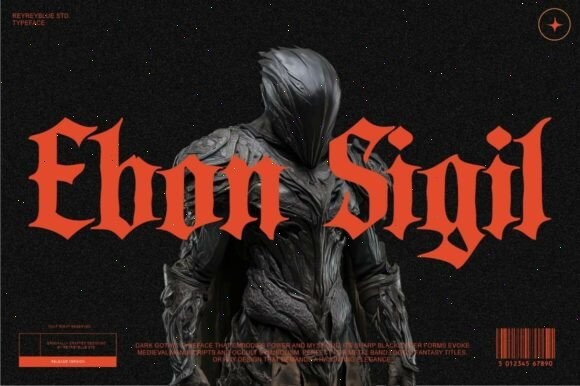
Ebon Sigil is one of the strongest options for dark fantasy branding. The typeface combines gothic structure with occult-inspired detailing and sharp medieval forms. Its official description references ancient sigils, gothic art, and cinematic fantasy aesthetics.
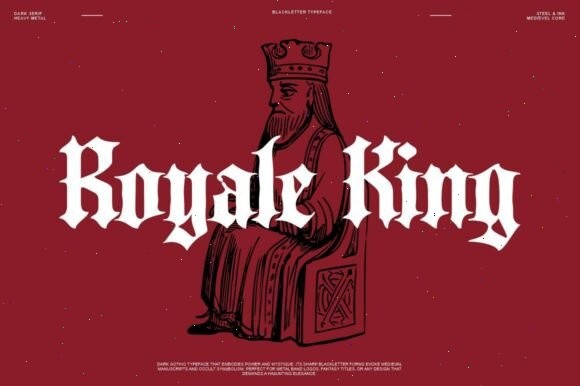
Best For:
Dark fantasy logos, horror branding, fantasy RPG titles, metal artwork, and dungeon-themed UI concepts.
Why It Works:
Ebon Sigil has enough detail to feel dramatic without becoming unreadable. The sharp vertical strokes hold up especially well against textured backgrounds and dark cinematic compositions.
It also works surprisingly well for modern fantasy thumbnails and social graphics because the shapes remain recognizable even at smaller sizes.
2. Tourah Shock
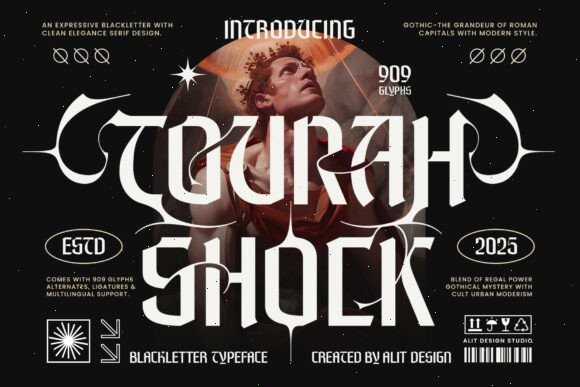
Tourah Shock blends traditional blackletter with tribal ornamentation and futuristic gothic styling. The font description describes it as a fusion between ancient and modern aesthetics with ceremonial influences.
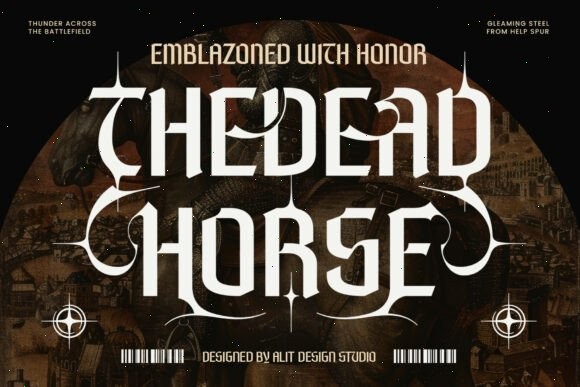
Best For:
Gothic cyber-fantasy branding, dark fashion projects, cinematic title cards, fantasy streetwear graphics, and occult-themed artwork.
Why It Works:
Unlike purely medieval blackletter fonts, Tourah Shock feels modern and experimental. The extended curves and ornamental endings give it a more premium editorial look.
This makes it especially effective for projects mixing fantasy aesthetics with contemporary design trends.
3. Bathory
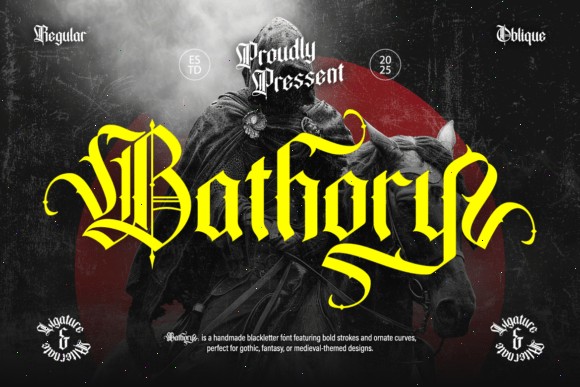
Bathory leans heavily into gothic horror and dark fantasy themes. The font description directly references aesthetics similar to Dark Souls and Diablo-inspired artwork.
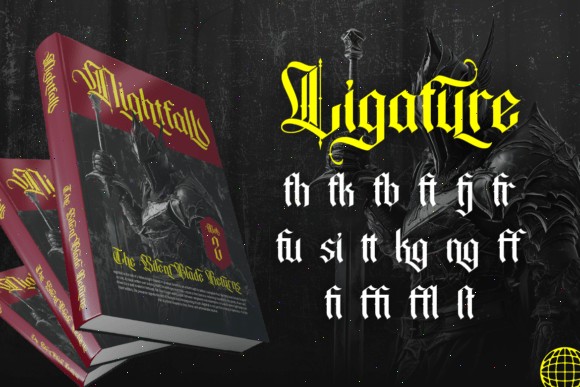
Best For:
Soulslike branding, horror game visuals, fantasy posters, metal band logos, and gothic merchandise.
Why It Works:
Bathory has a traditional blackletter structure with dramatic flourishes that immediately create a dark medieval atmosphere.
The Oblique variation is especially useful for logo treatments because it adds movement and aggression without sacrificing the gothic feel.
4. Crownspire
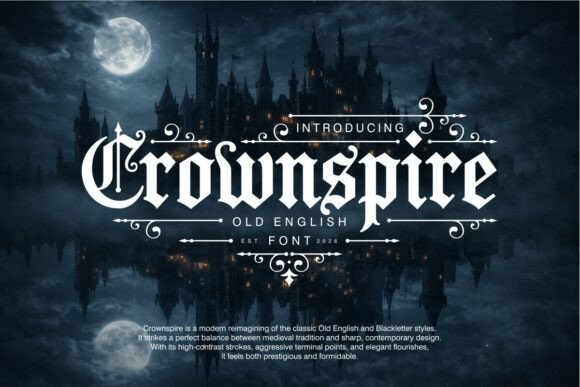
Crownspire feels cleaner and more refined than many aggressive blackletter fonts. It combines medieval inspiration with modern readability and cinematic styling.
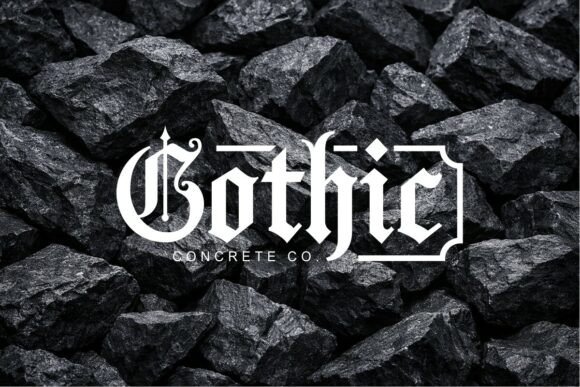
Best For:
AAA fantasy game branding, premium gothic logos, dark fantasy posters, apparel graphics, and fantasy streaming overlays.
Why It Works:
The sharp architectural terminals resemble gothic cathedral shapes, giving the font a regal and high-end appearance.
Crownspire works particularly well for fantasy brands that want elegance rather than chaos.
5. Bladfour
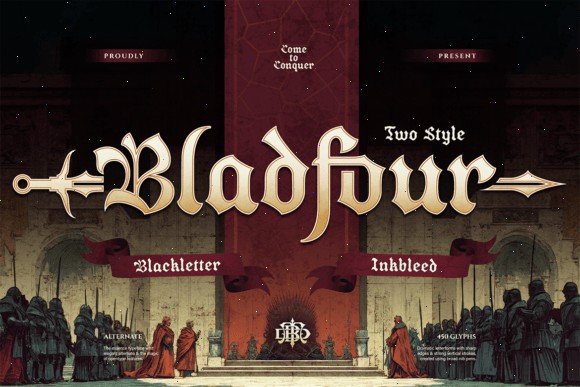
Bladfour was clearly designed for epic fantasy storytelling. The font description specifically references medieval worlds, heroic tales, and cinematic fantasy visuals.
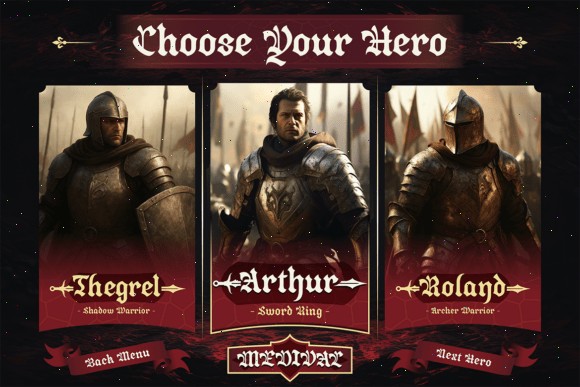
Best For:
RPG game titles, fantasy trailers, medieval branding, book covers, and cinematic posters.
Why It Works:
The included Inkbleed version gives Bladfour a gritty textured appearance that fits dark fantasy worlds extremely well.
In practical use, textured font styles like this reduce the need for additional distress effects during logo creation.
6. Highborne
Highborne focuses more on gothic nobility and heraldic influence than raw aggression. The font description references castles, ancient manuscripts, and historic insignia.
Best For:
Medieval kingdom branding, fantasy novel titles, noble faction logos, cinematic quotes, and historical fantasy projects.
Why It Works:
Highborne remains readable while still preserving classic blackletter character shapes.
That makes it one of the more flexible fonts for fantasy interfaces, merchandise, and modern branding systems.
Are blackletter fonts hard to read?
Some highly decorative blackletter fonts can become difficult to read at smaller sizes. Cleaner options like Highborne or Crownspire are more versatile for modern design projects.
Can blackletter fonts work in modern UI design?
Yes. Many newer blackletter fonts combine medieval inspiration with cleaner geometry, making them usable in gaming interfaces, streaming graphics, and contemporary branding.